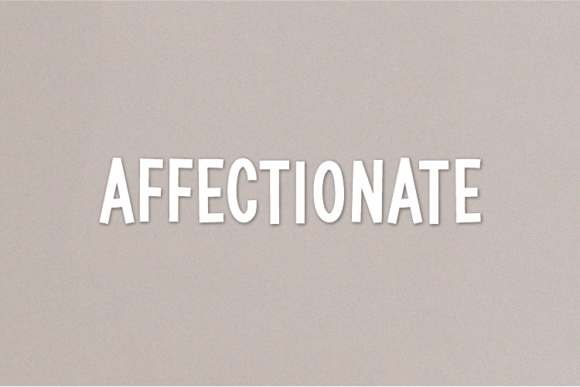
The Affectionate Font: A Designer’s New Best Friend
I’ll never forget the time I was working on a project for a client who wanted a custom t-shirt design with a quote that captured the essence of their brand. I had a clear vision of what I wanted to create, but I was struggling to find the perfect font to bring it all together. That’s when I stumbled upon the Affectionate font, and let me tell you, it was love at first sight! 💕
This unique sans serif font has become a staple in my design toolkit, and I’m excited to share its awesomeness with you. Whether you’re a designer, crafter, or creative hobbyist, Affectionate is perfect for quotes, notes, t-shirts, and many more projects.
What I Love About Affectionate ✨
• ✅ Unique and interesting design that stands out from the crowd
• ✅ Perfect for quotes, notes, and other creative projects
• ✅ Extensive character set, including glyphs and stylistic alternates
• ⚠️ Some users may find the font a bit too condensed for certain applications
• ⚠️ Limited availability of language support (but it’s still a great option for English-based projects)
Affectionate was designed with love and care by a team of typographers who wanted to create a font that would bring people closer together. The font’s unique design is inspired by the way we express affection and kindness to one another, whether through words, gestures, or simple acts of kindness.
A: Affectionate is a unique sans serif font perfect for quotes, notes, t-shirts, and many more creative projects.